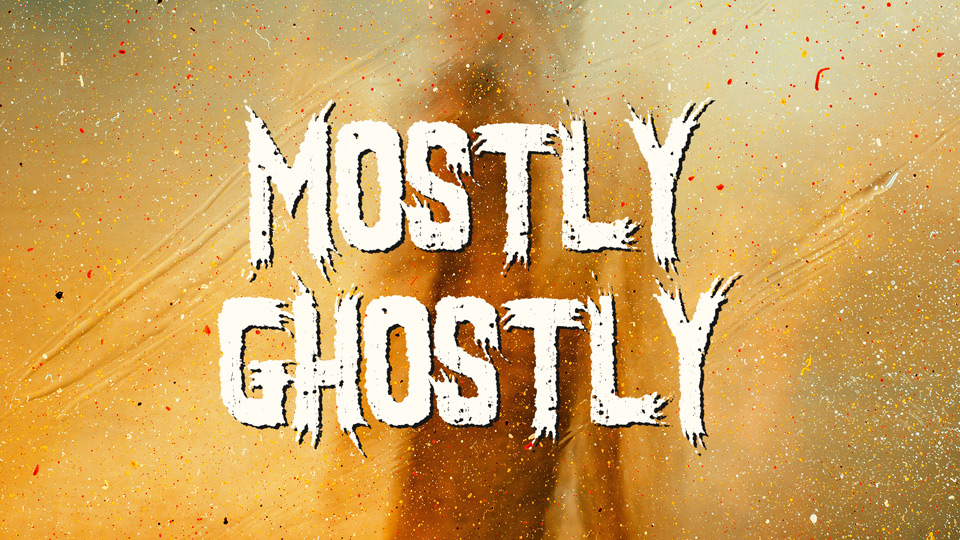
Download Mostly Ghostly font, a typeface that conjures the spectral and the mysterious with every stroke. Mostly Ghostly font is ideal for designs that demand an element of ghostly intrigue and suspense.